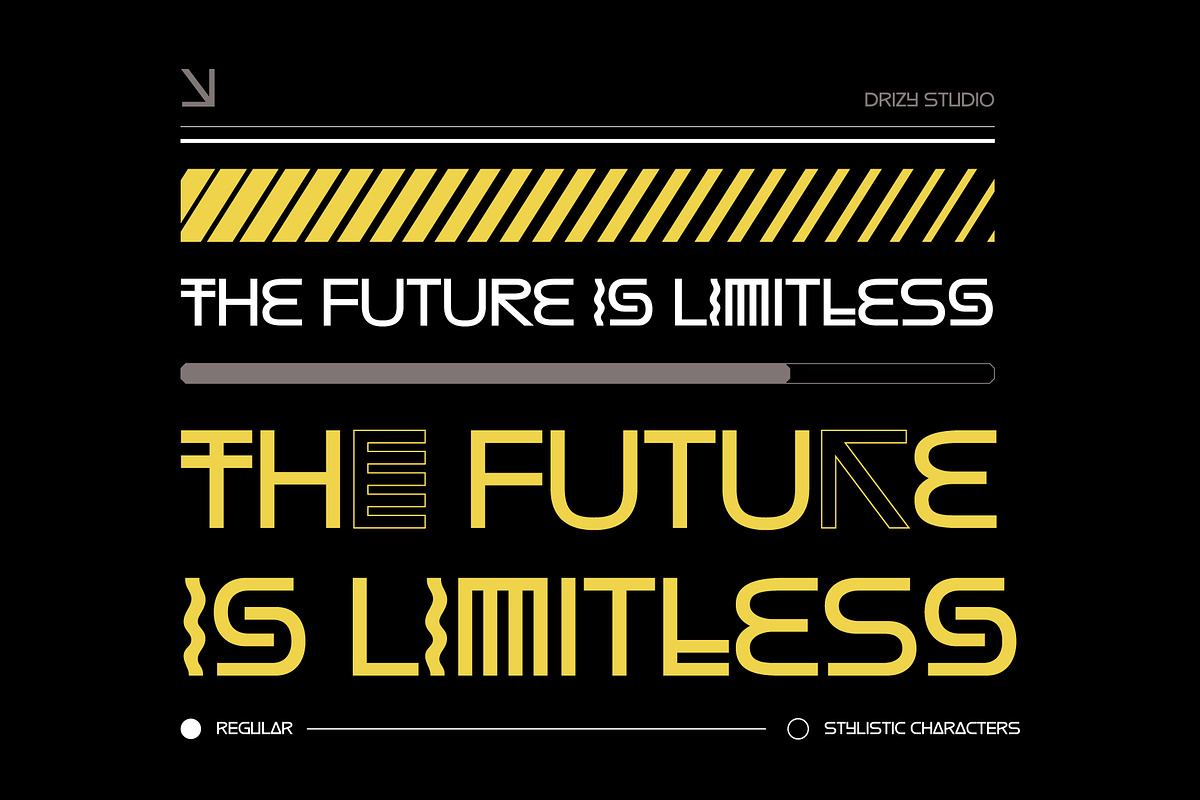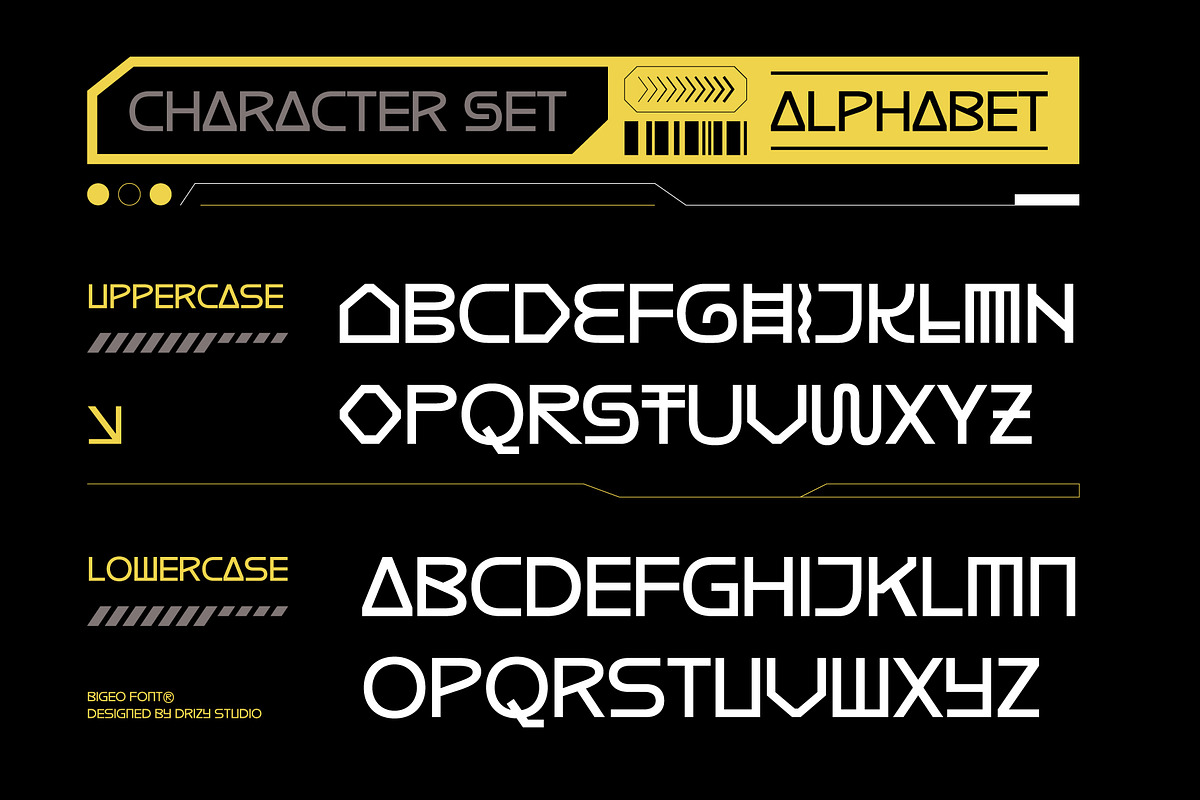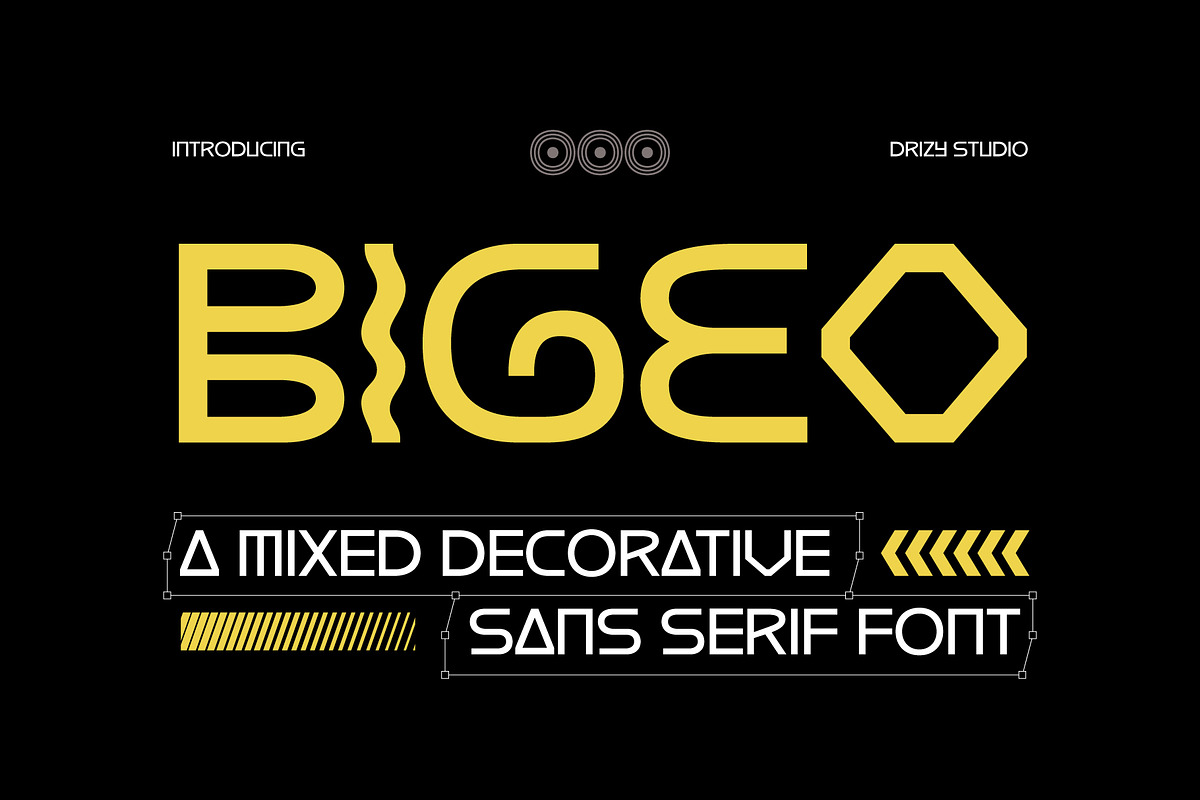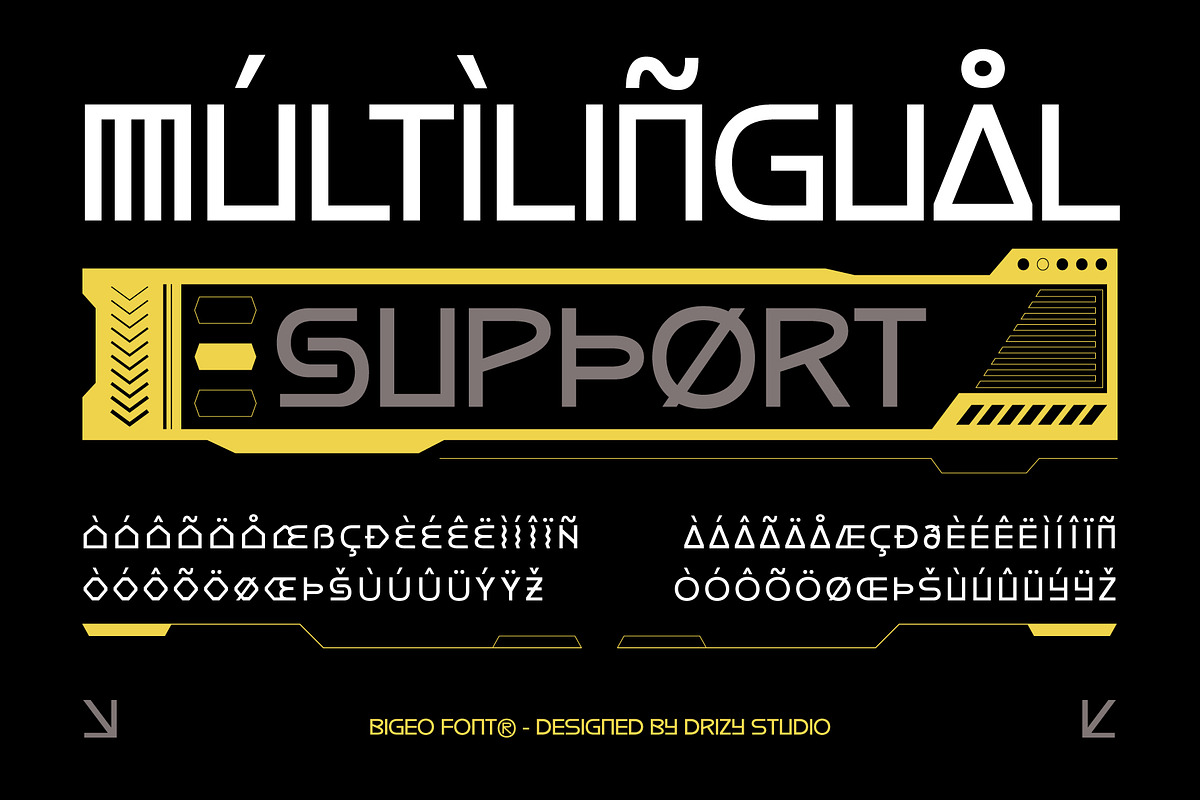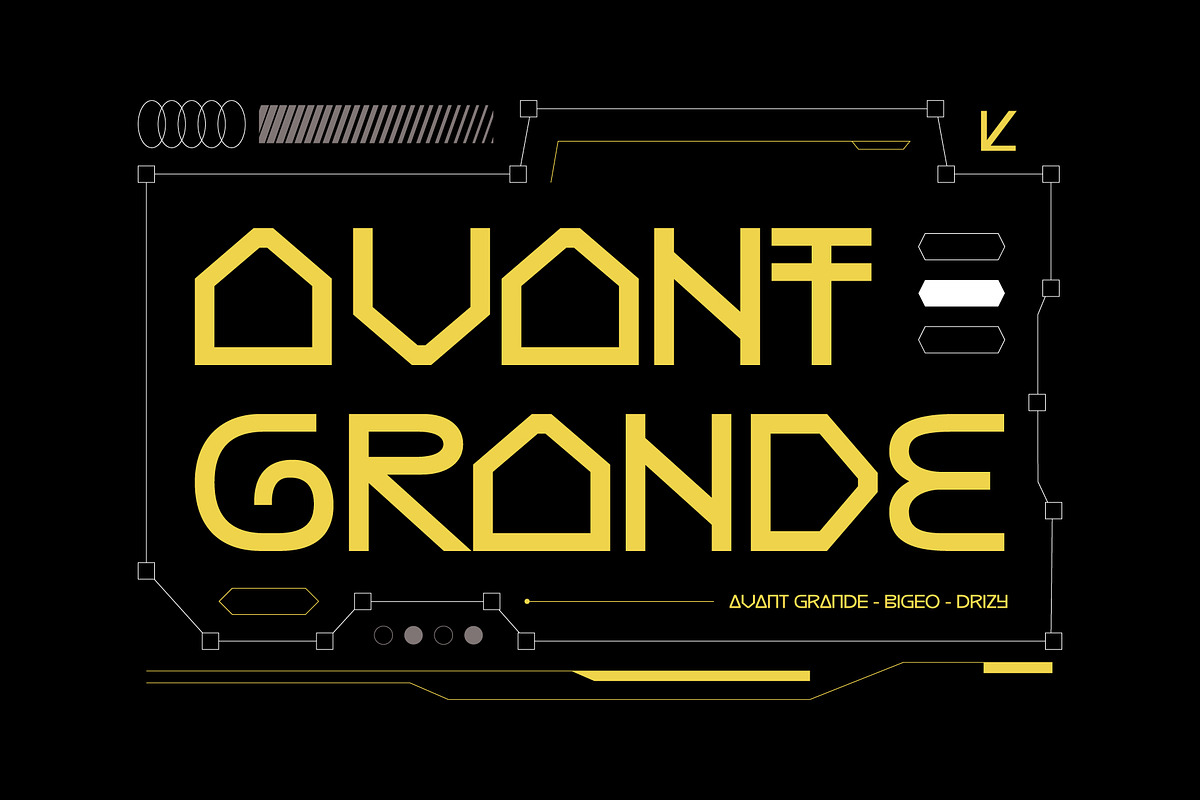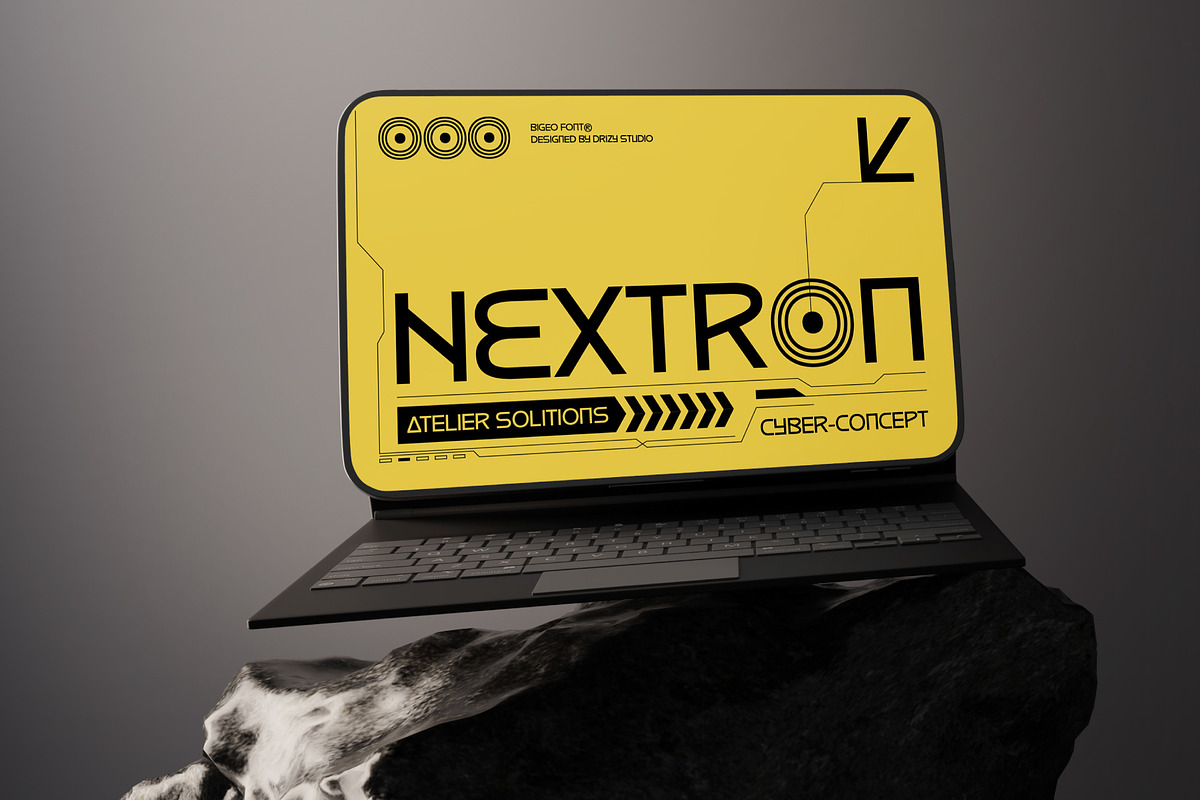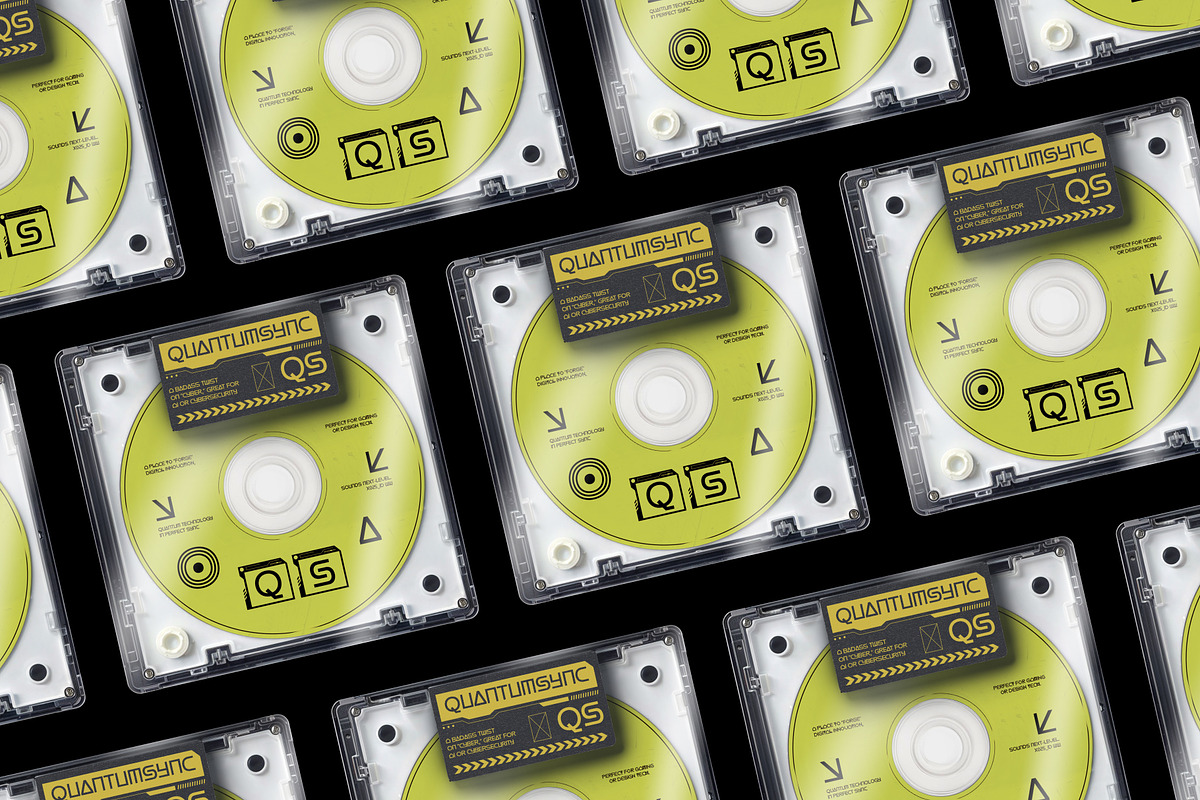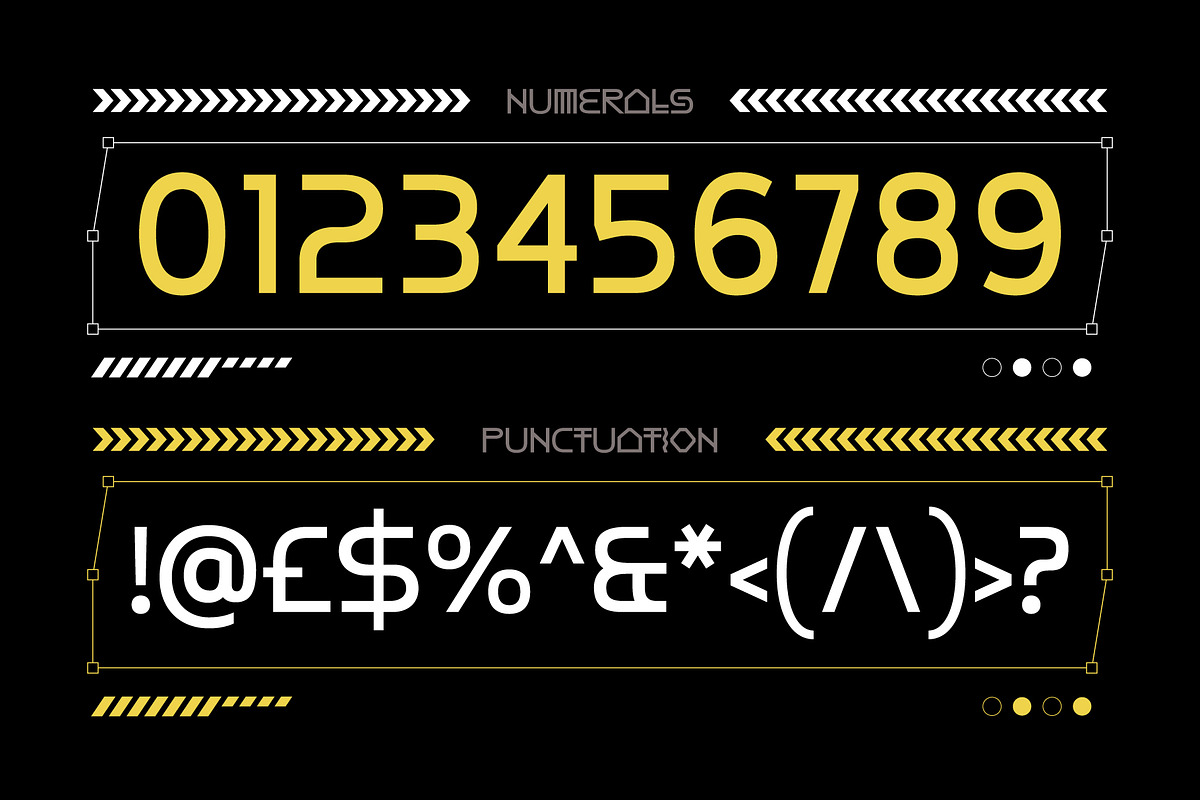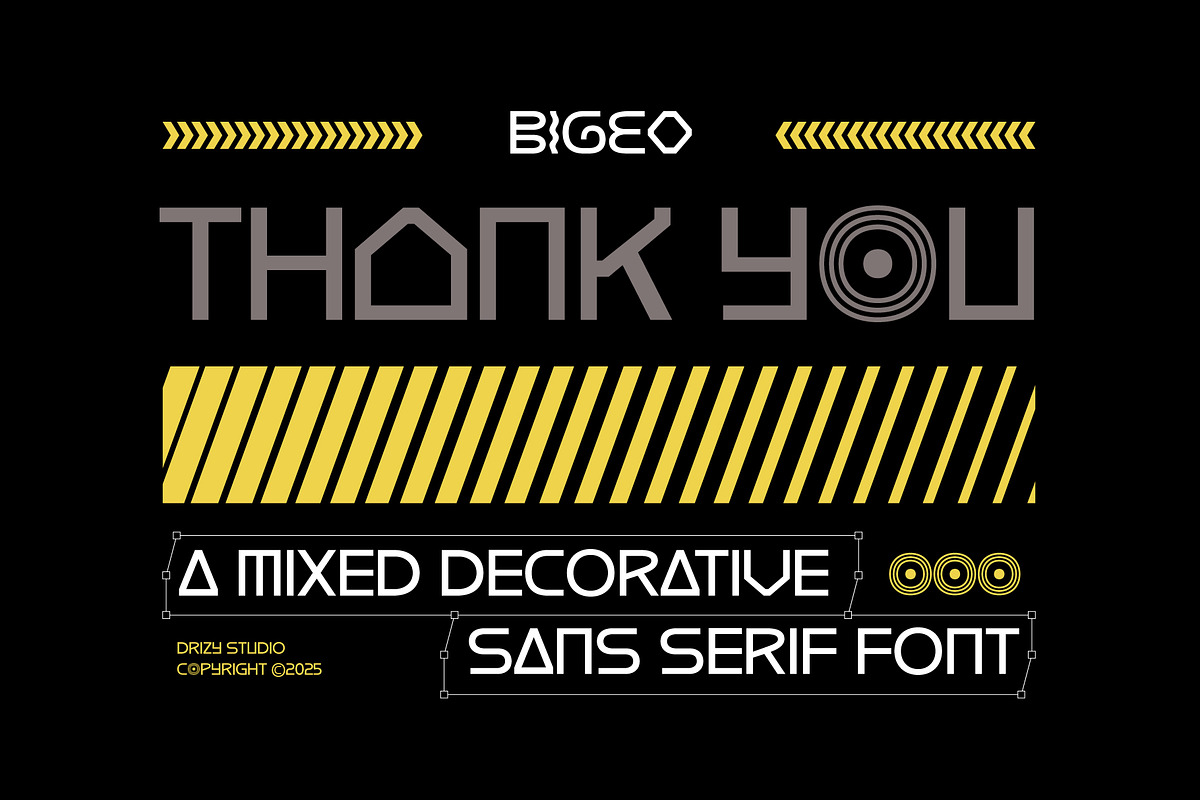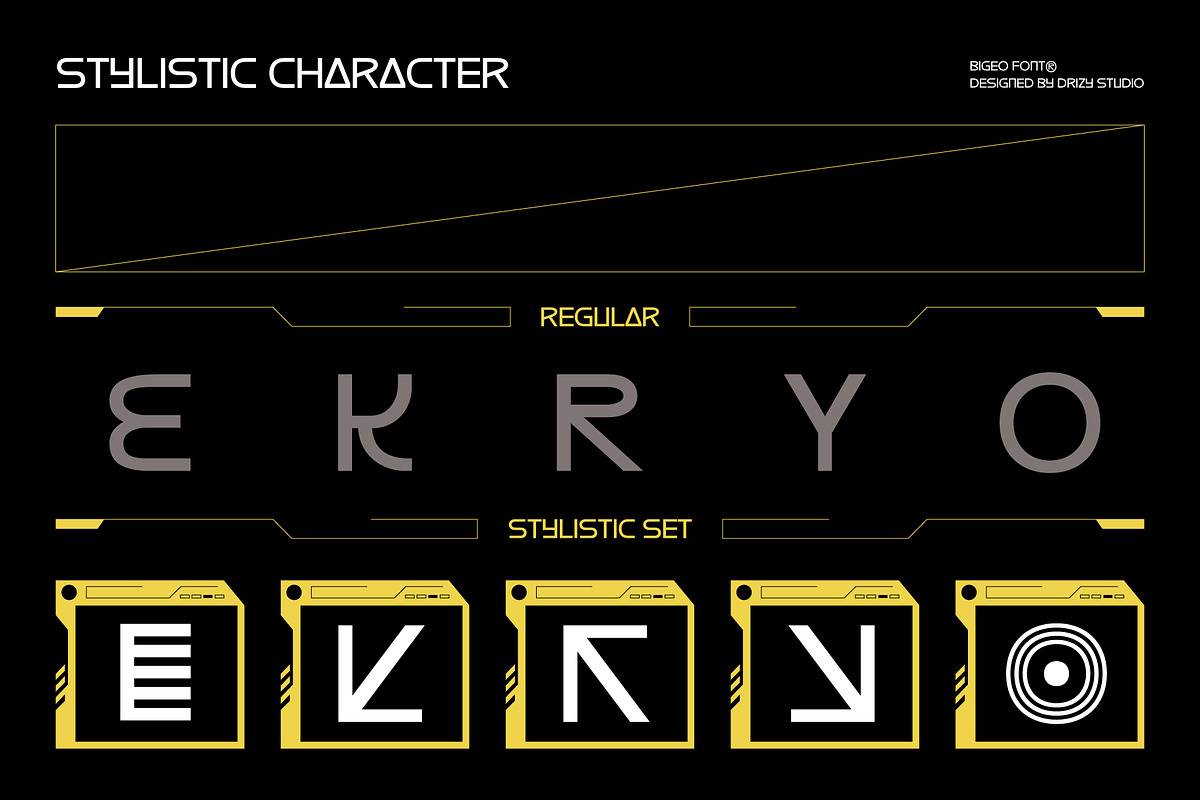
Bigeo – Mixed Decorative Sans Serif
Bigeo – Mixed Decorative Sans Serif Font
Bigeo – Mixed Decorative Sans Serif is a captivating typeface that stands out within the Modern Geometric Mixed Font category. With its clean, structured lines combined with playful and distinctive decorative elements, Bigeo strikes a perfect balance between sleek professionalism and creative flair. The geometric shapes of the letters offer a contemporary feel, while its unique details give it a touch of individuality that require a bold yet approachable appearance. This font effortlessly blends the precision of geometric design with the freedom of artistic expression, creating a visual impact that is both stylish and memorable.
Bigeo – Mixed Decorative Sans Serif Font features:
- All Caps (Uppercase & Lowercase)
- Punctuation & Numbers
Elevate and explore the design possibilities with this Modern Geometric Mixed Font!